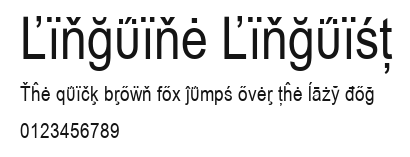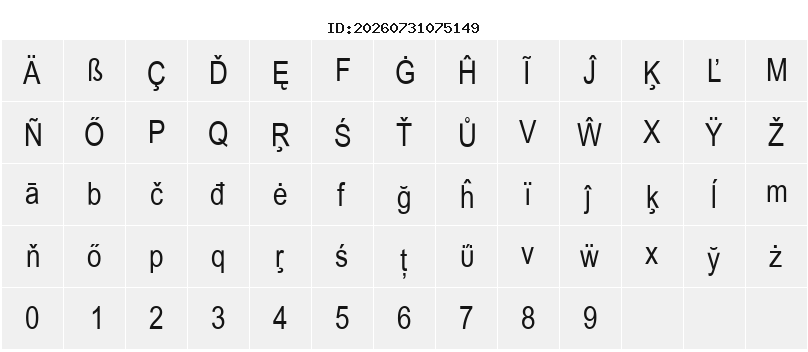
• Font Name: Linguine Linguist
• Full Font Name: Linguine Linguist
About Linguine Linguist.ttf
Linguine Linguist.ttf is a modern, elegant sans-serif font designed for ultimate readability and visual harmony. Perfect for branding, headlines, web design, and print materials.